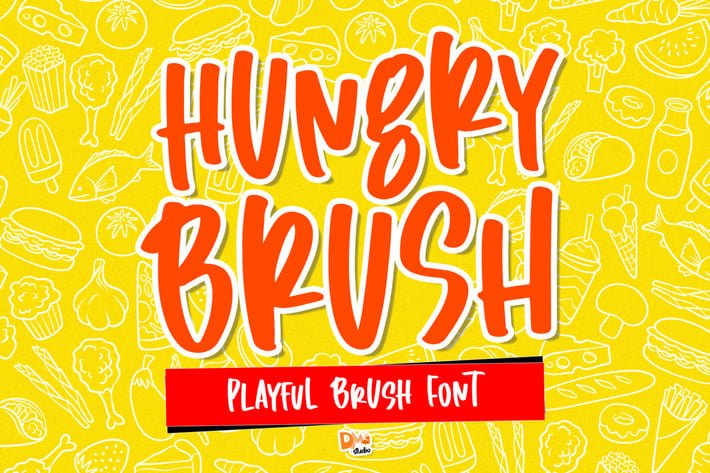
Hungry Brush - Playful Brush Font
Introducing this expressive, fun and playful handwritten typeface : Hungry Brush
Great for any design, social media posts, advertising, diy projects and much more!
- All in caps ( 2 styles )
- Numbers
- Symbols